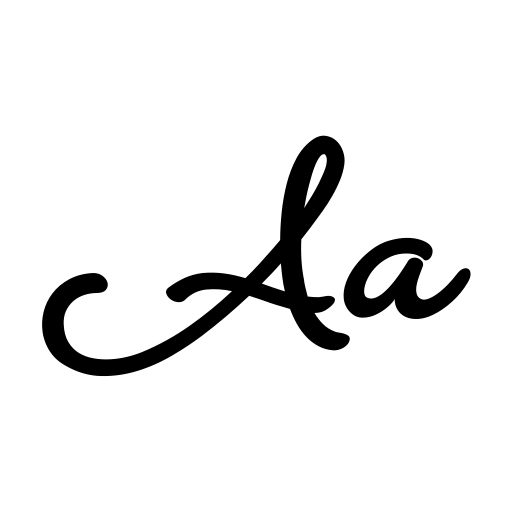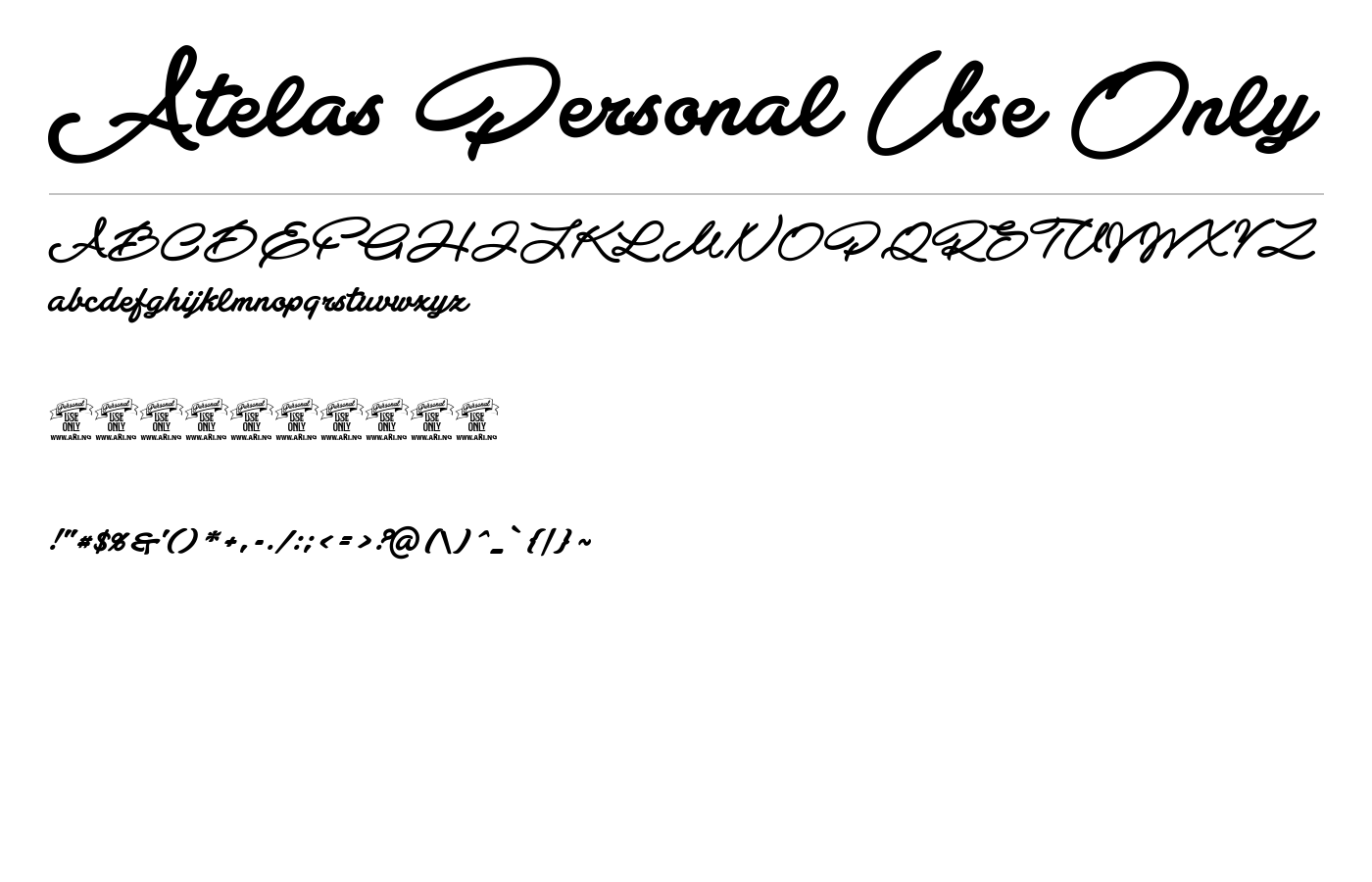
Atelas Personal Use Only is a smooth and elegant script font with a lively, handwritten feel. Its medium weight and flowing, connected strokes give it a warm, approachable personality ideal for invitations, branding, and creative projects that seek a personal, charming touch. This font works beautifully for headlines and display uses where a stylish, classic script can shine.
Atelas Personal Use Only Font
About Atelas Personal Use Only Font